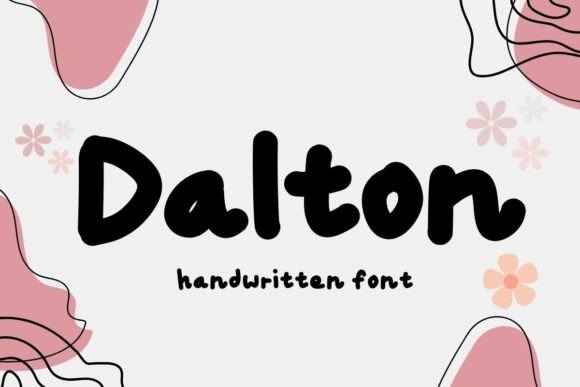
In today's digital realm, your creative arsenal demands bold and versatile instruments to weave a narrative that captivates and converts. Meet Dalton Font, the virtuoso script font designed to be your expressive maestro. With its audacious strokes and enchanting twists, Dalton Font emerges as the ideal choice for those seeking a typeface that harmonizes with their vision of artistic distinction.
Embark on a journey of unrivaled versatility, as Dalton Font effortlessly transforms your words into an artistic spectacle. Beguile your audience with letterheads that exude a sense of timeless elegance, or craft titles that ignite curiosity and intrigue. Unleash your creativity with stationery that reflects your individuality, leaving an indelible mark on the minds of those who encounter it.
Step into the realm of branding, where Dalton Font becomes your trusted ally. Create captivating logos that encapsulate your brand's essence, leaving a lasting impression that lingers in the memories of your clientele. Elevate your t-shirts with designs that speak volumes about your style and personality. Unleash the full glory of posters adorned with Dalton Font's captivating curves, drawing attention like a magnet.
Visualize the allure of photography adorned with Dalton Font's graceful strokes, inviting viewers into a world of untold stories. Craft inspiring quotes that resonate with your audience, leaving them forever changed by the poignant beauty of your message. And for those moments when you seek to express the inexpressible, Dalton Font stands ready to guide your emotions onto the page with unparalleled eloquence.
Dalton Font stands as more than just a typeface; it is a portal to a world of boundless creativity. With its inherent elegance and versatility, it seamlessly adapts to your every need, transforming your artistic aspirations into tangible realities. Welcome Dalton Font into your creative sanctuary and witness the transformation it brings, as your designs transcend the ordinary and soar into the realm of the extraordinary.
Unlock the gateway to creative liberation with Dalton Font, the ultimate script font meticulously designed to ignite your imagination. Embrace the power of expression, and let your vision find its voice through the captivating charm of this remarkable font. Its intuitive design and inherent versatility make it the perfect companion for any creative pursuit, empowering you to turn your dreams into a reality.